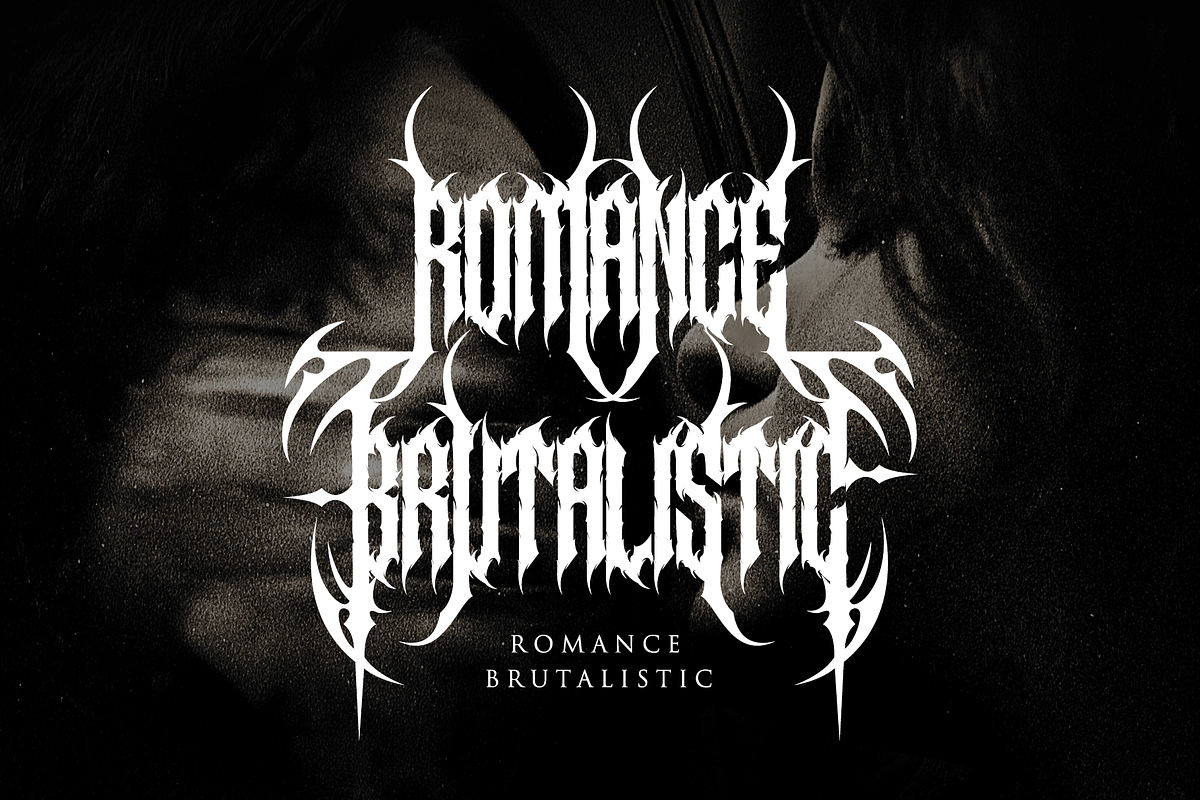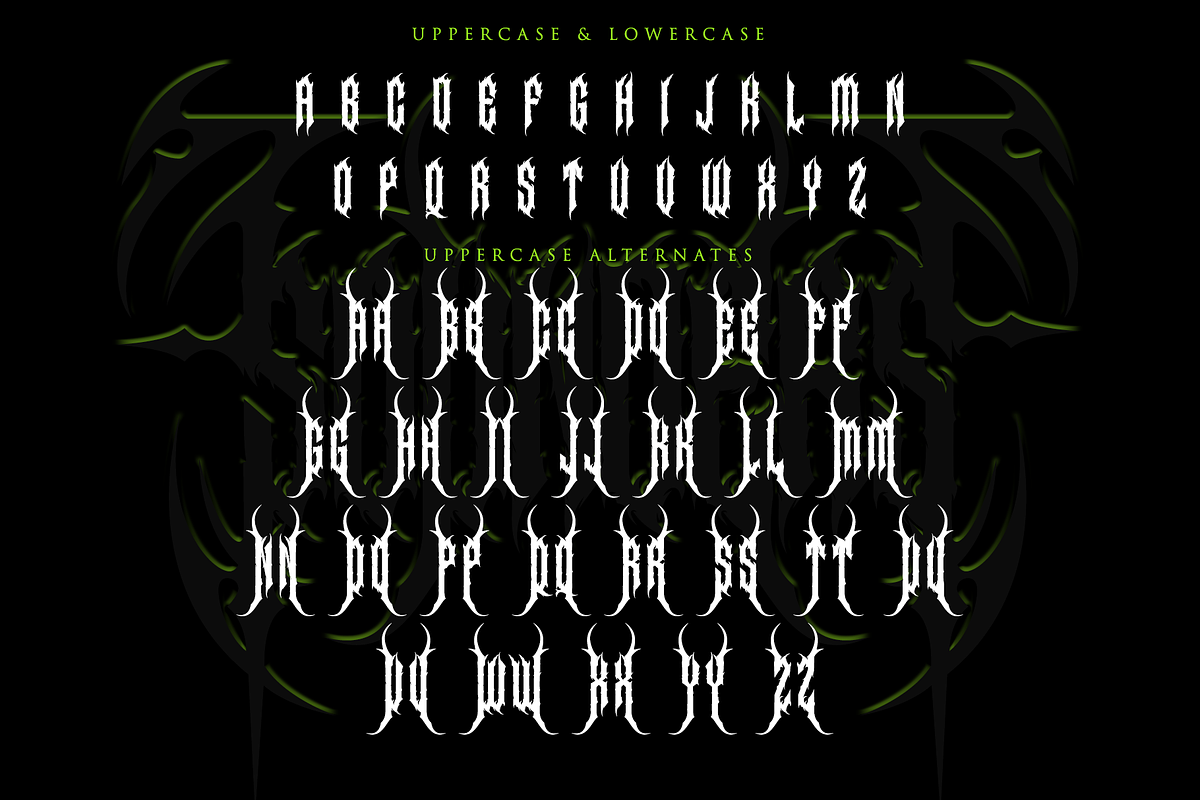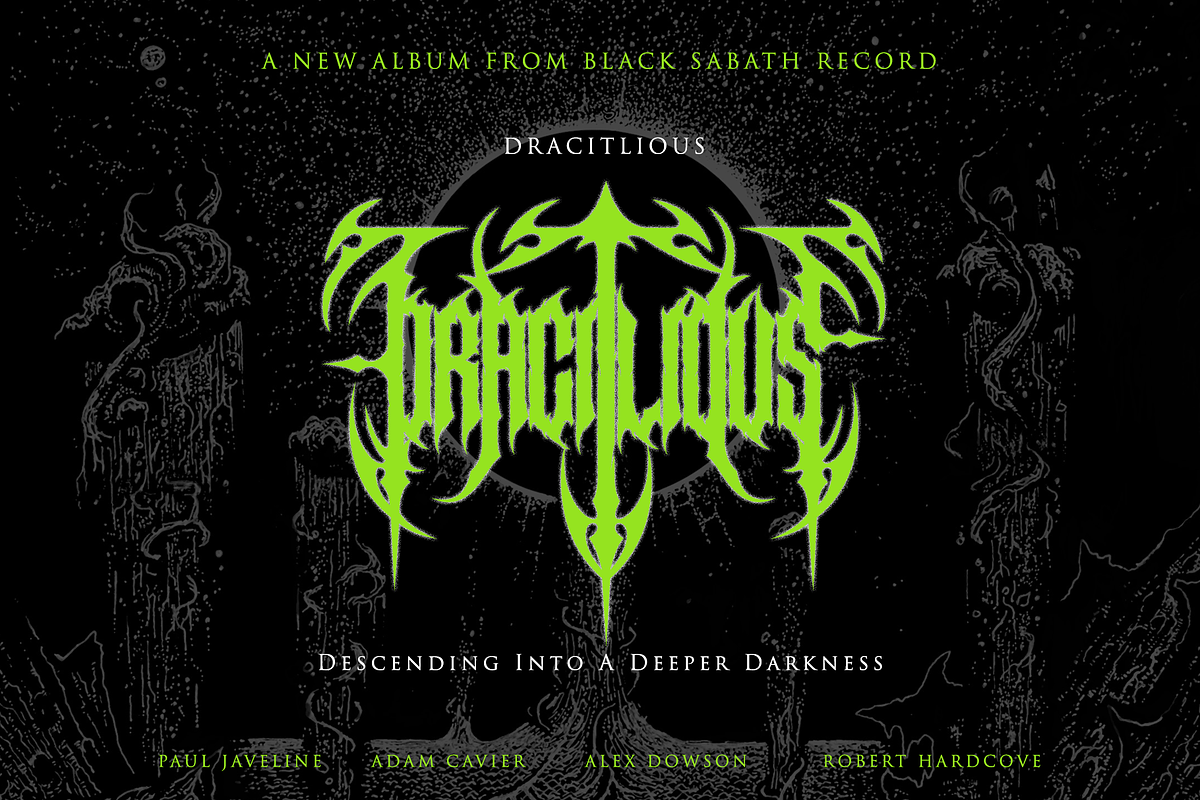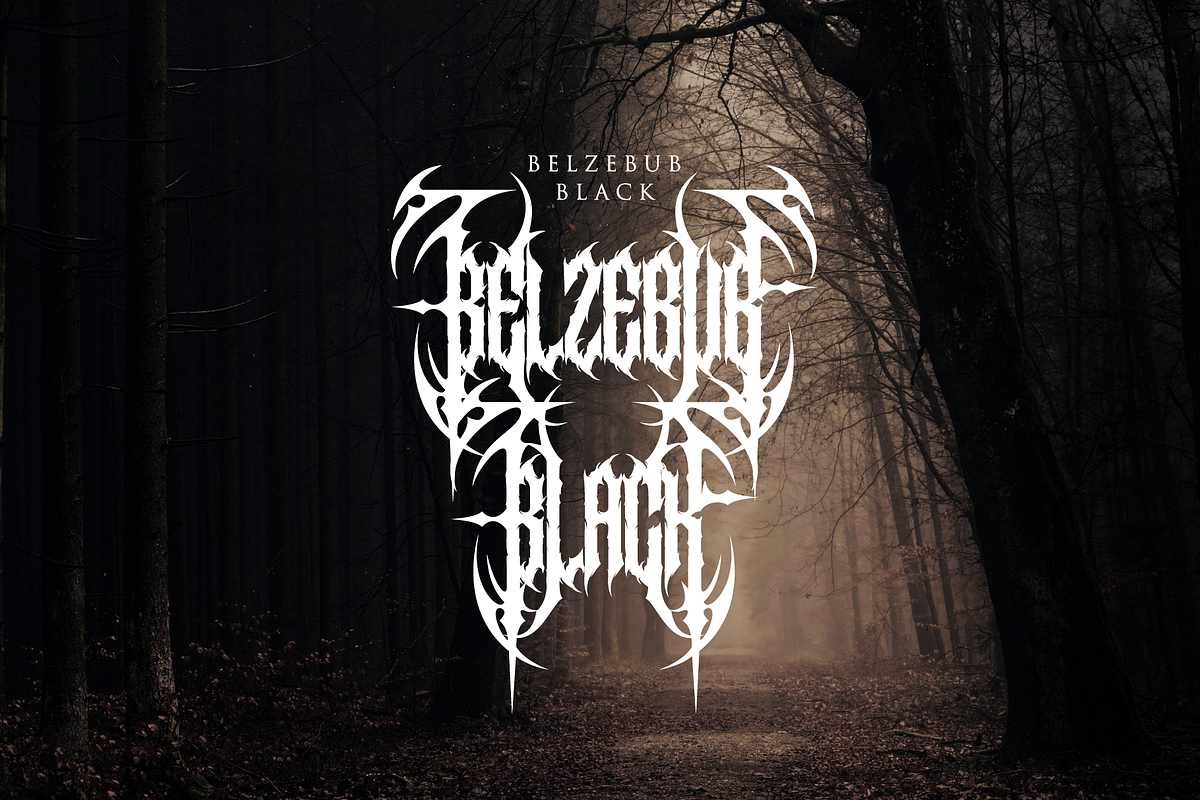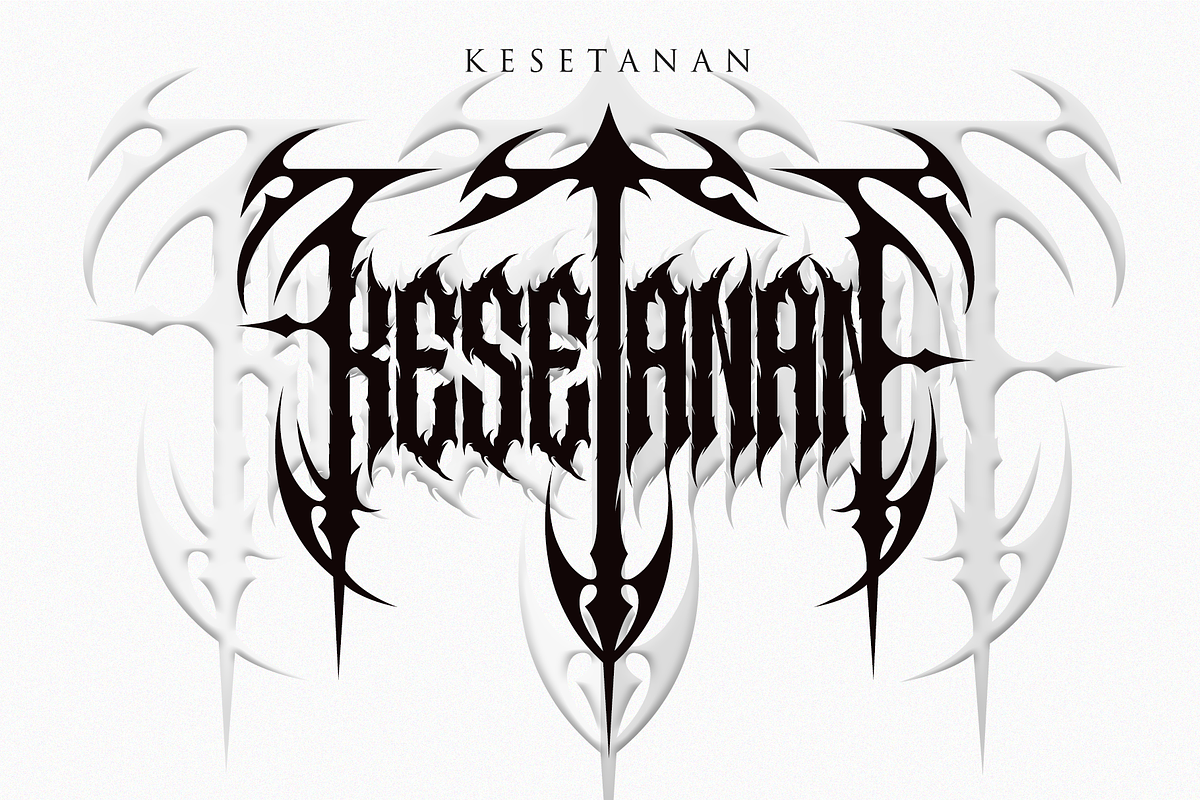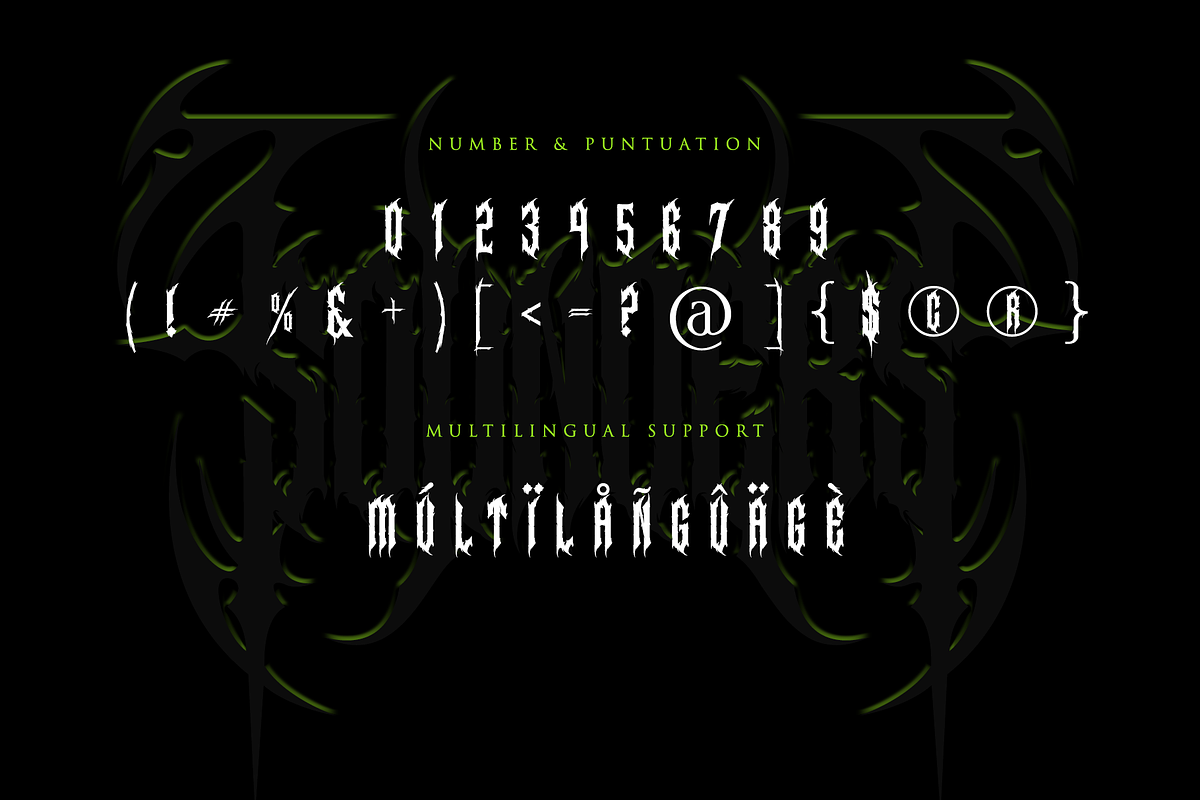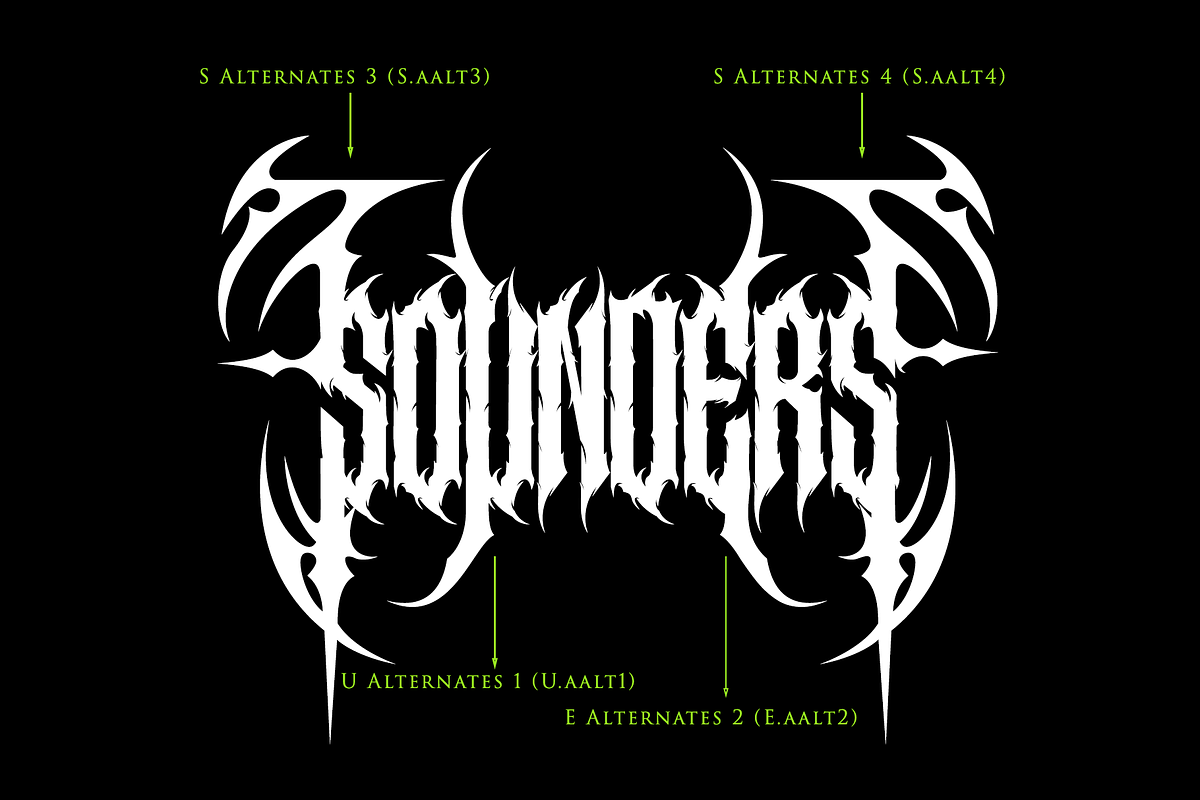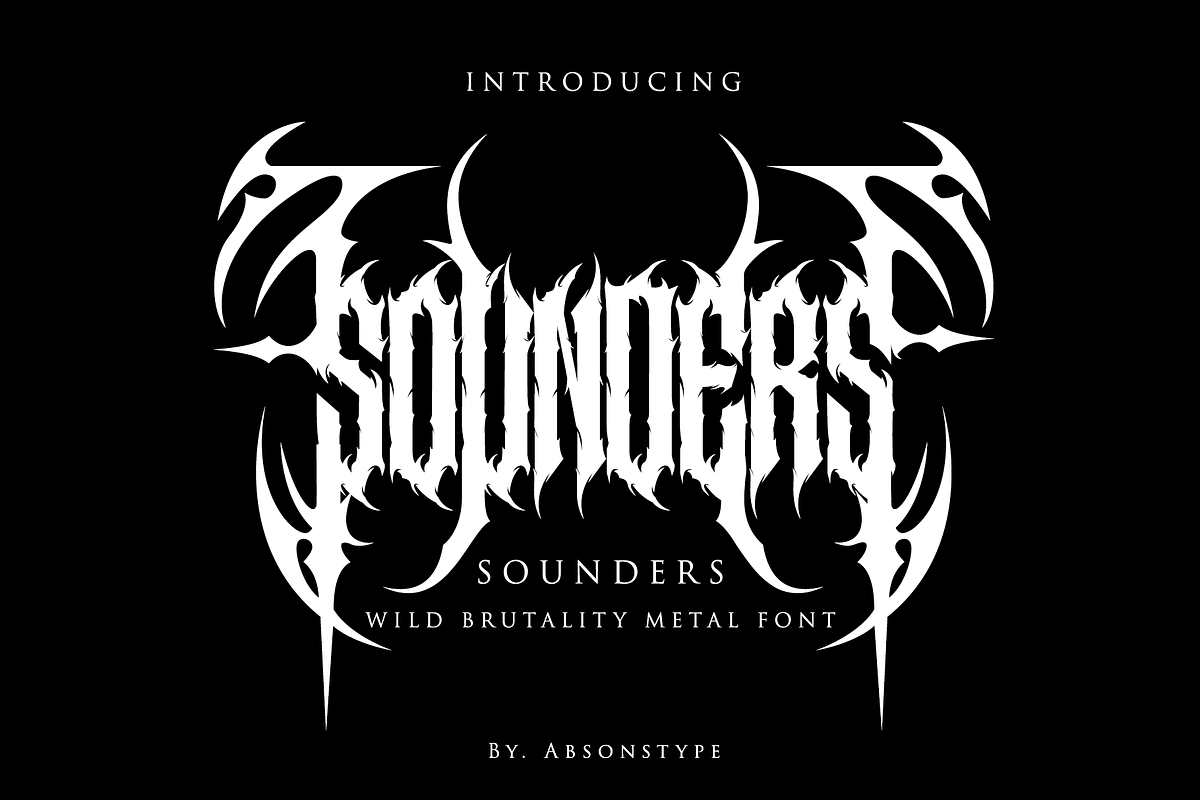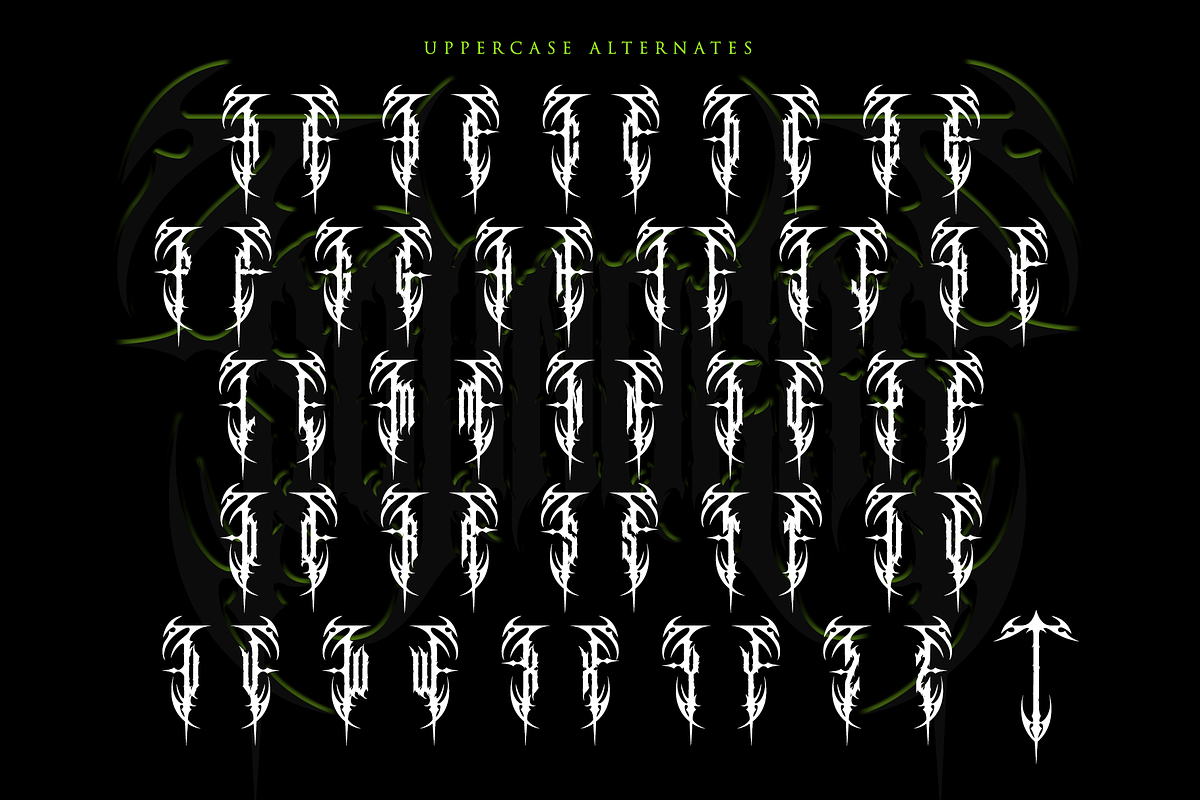
Sounders - Blackletter
Unleash the chaos with SOUNDERS, a bold and ferocious display typeface designed for extreme metal, deathcore, and dark horror aesthetics. With razor sharp edges and aggressive strokes, this font screams brutality, making it the perfect choice for album covers, band logos, merchandise, posters, and any design that demands intensity.
Crafted by Absonstype, SOUNDERS is more than just a typeface it’s a visual weapon for designers who aren’t afraid to go wild.
🔥 Font Features :
- Uppercase & Lowercase Letters : Designed with brutal symmetry, both cases retain the wild, thorn-like styling.
- Extensive Alternates : Multiple stylistic sets and alternate characters for each uppercase letter allow maximum customization : - 50+ uppercase alternates and Stylistic variants such as S.aalt3, S.aalt4, U.aalt1, E.aalt2, etc.
- Numbers & Punctuation : A complete set of numerals and special characters to keep your designs functional yet fierce.
- Multilingual Support : Covers essential Latin-based accents and glyphs to support multiple languages globally.
- Perfect for Extreme Music Genres : Designed with black metal, deathcore, and grindcore in mind visually echoes the sound of chaos.
- Highly Customizable : With dozens of alternate glyphs, you can create unique, non-repetitive designs that stand out.
- Visually Aggressive & Memorable : Instantly catches attention with its sharp, high-contrast lettering ideal for logo work and branding.
- Versatile in Style : Despite its brutal aesthetic, it remains legible and can be adapted for horror film posters, gaming titles, tattoo designs, and more.
- Professional Typography Quality : Created by an experienced type designer ensuring excellent spacing, kerning, and overall usability.
Whether you're branding a death metal band or crafting a horror-themed event, SOUNDERS delivers raw, unapologetic impact with every letter.